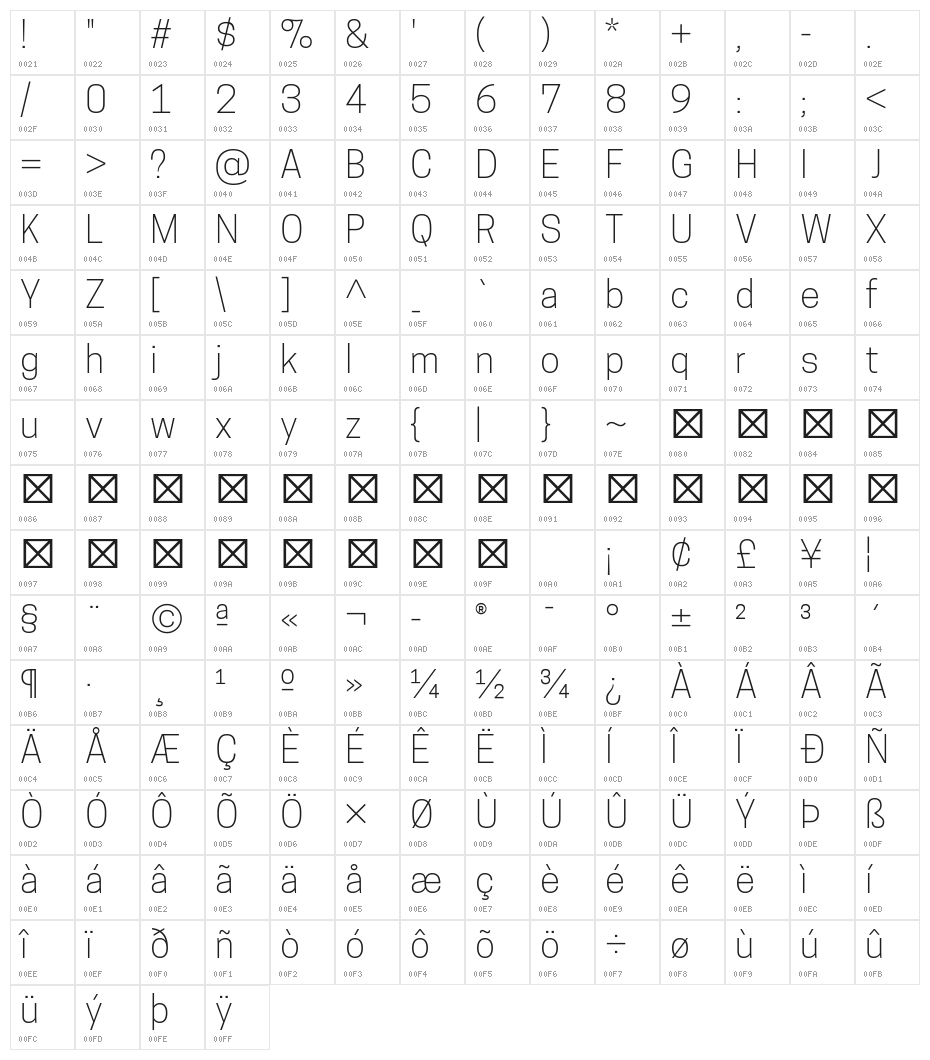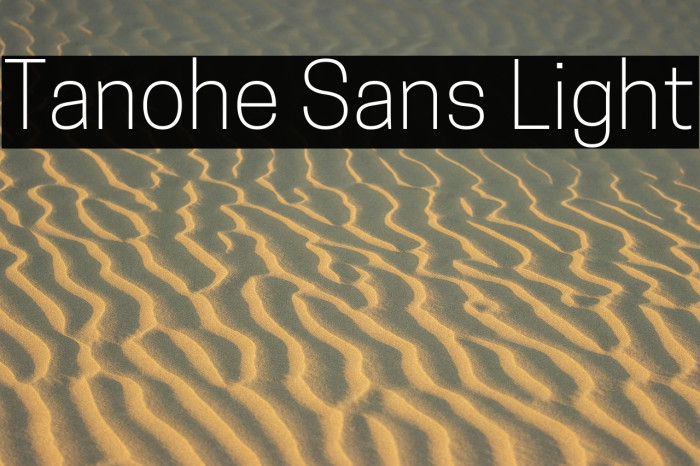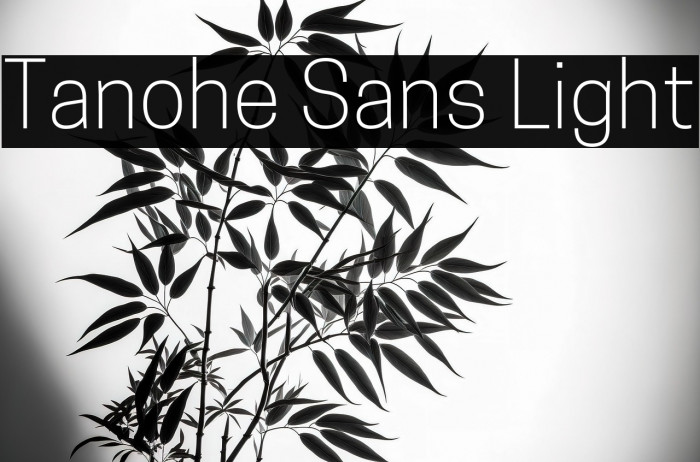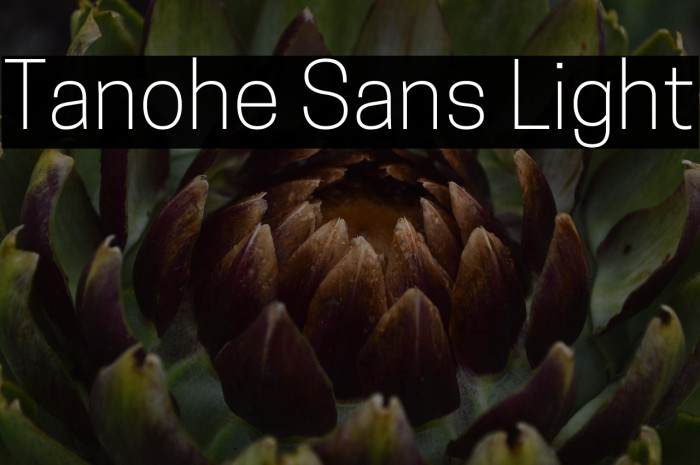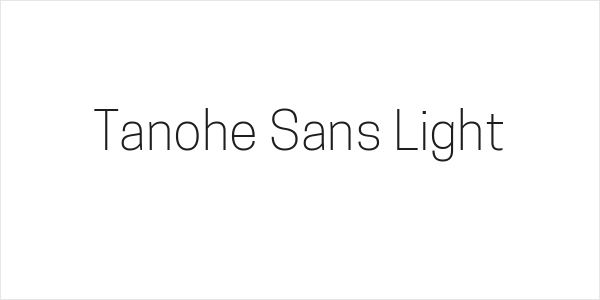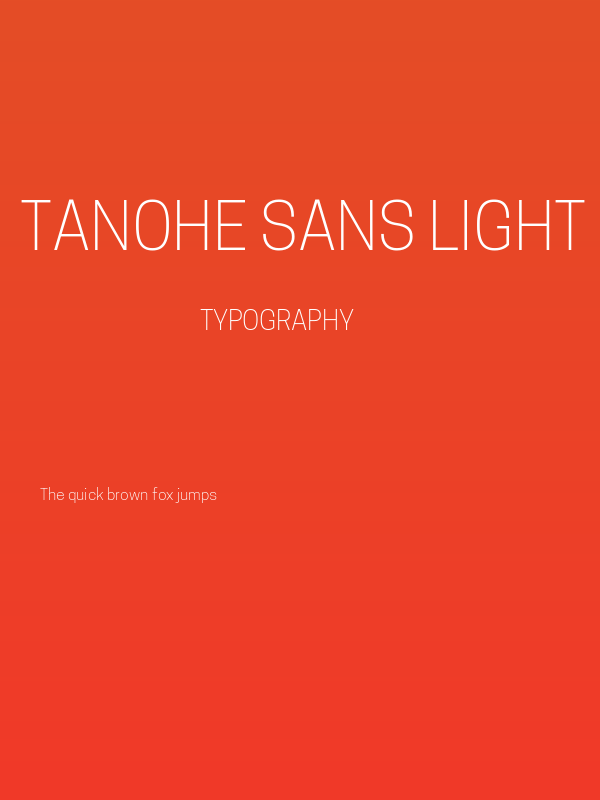
Tanohe Sans Light Font
Tanohe Sans Light Description
This font features a clean and modern sans-serif design with a light weight, making it ideal for minimalist and contemporary projects. The characters are evenly spaced with a normal width, providing excellent readability. The uppercase and lowercase letters are well-balanced, and the numerals are clear and distinct. Special characters are included, enhancing its versatility for various applications. The overall style is sleek and professional, suitable for both digital and print media.
| Proposed Projects | Ideal for branding, web design, corporate materials, and editorial layouts. |